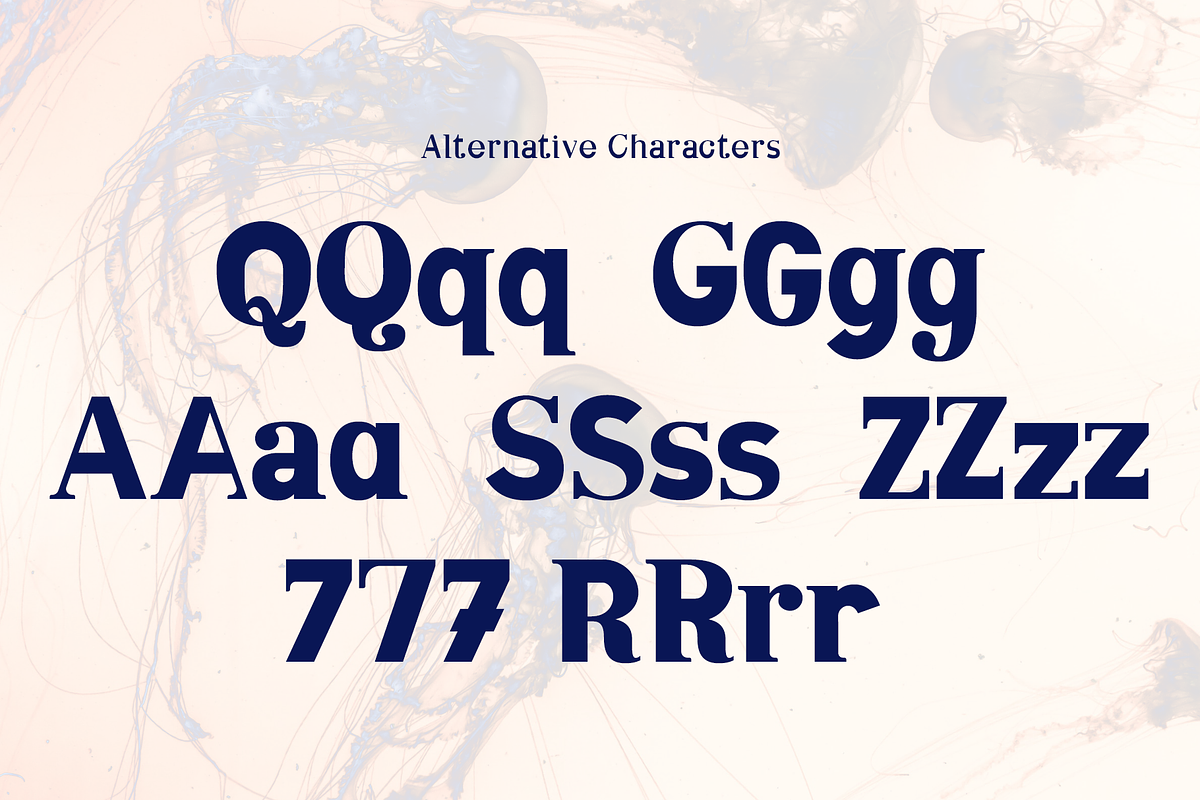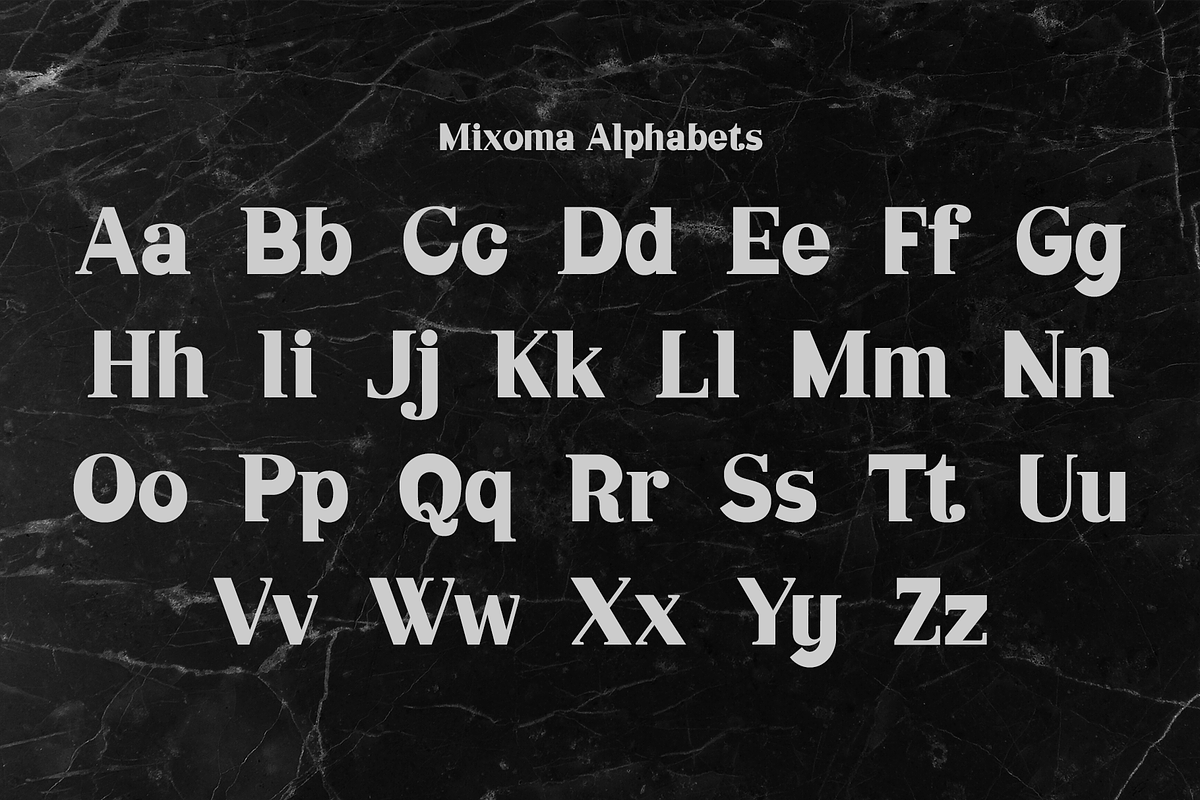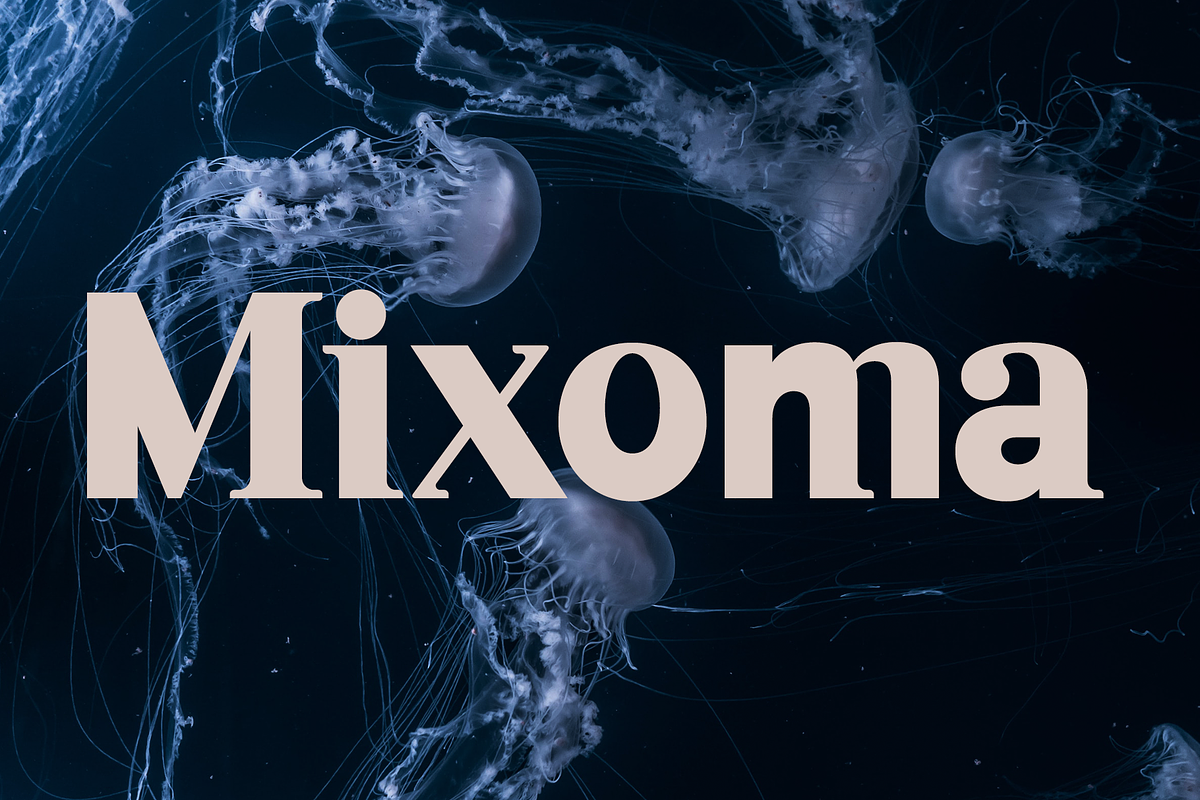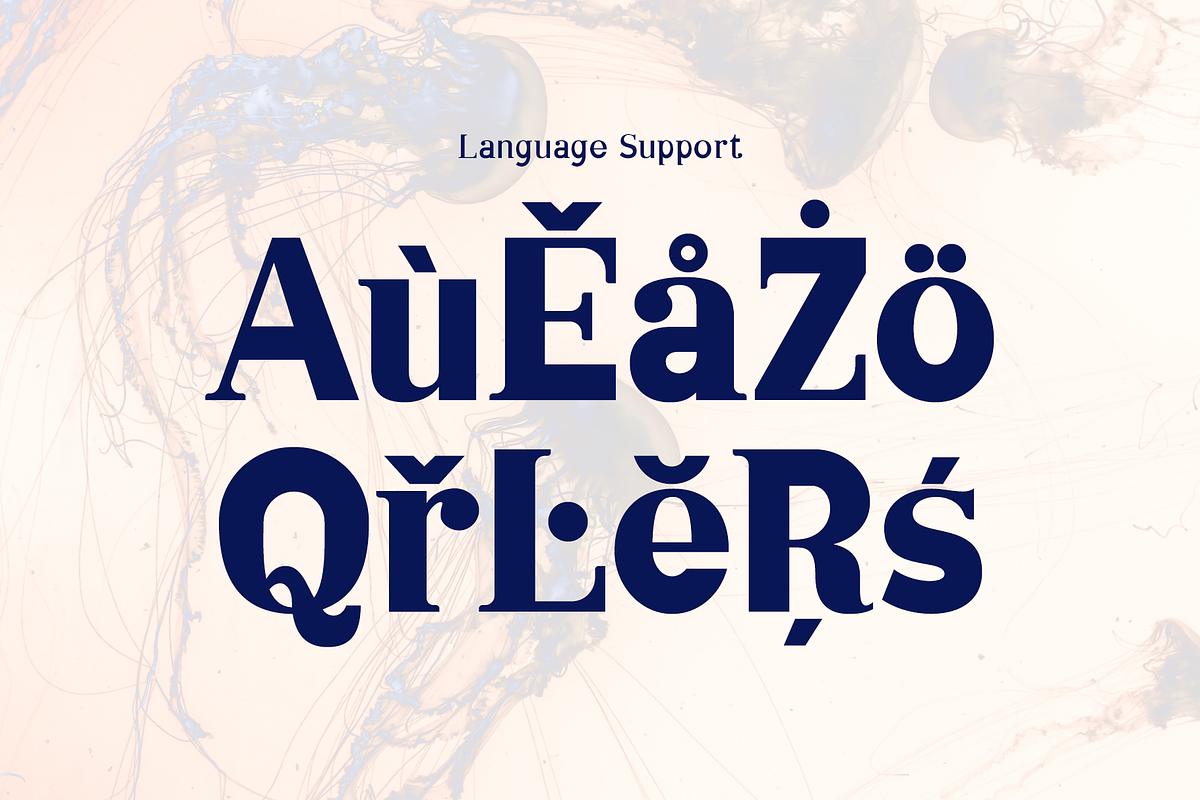
Mixoma
Mixoma is a perfect blend of Sans & Serif, invoking that double take moment. With alternate options for the whole alphabet you really can mix things up. Enjoy!